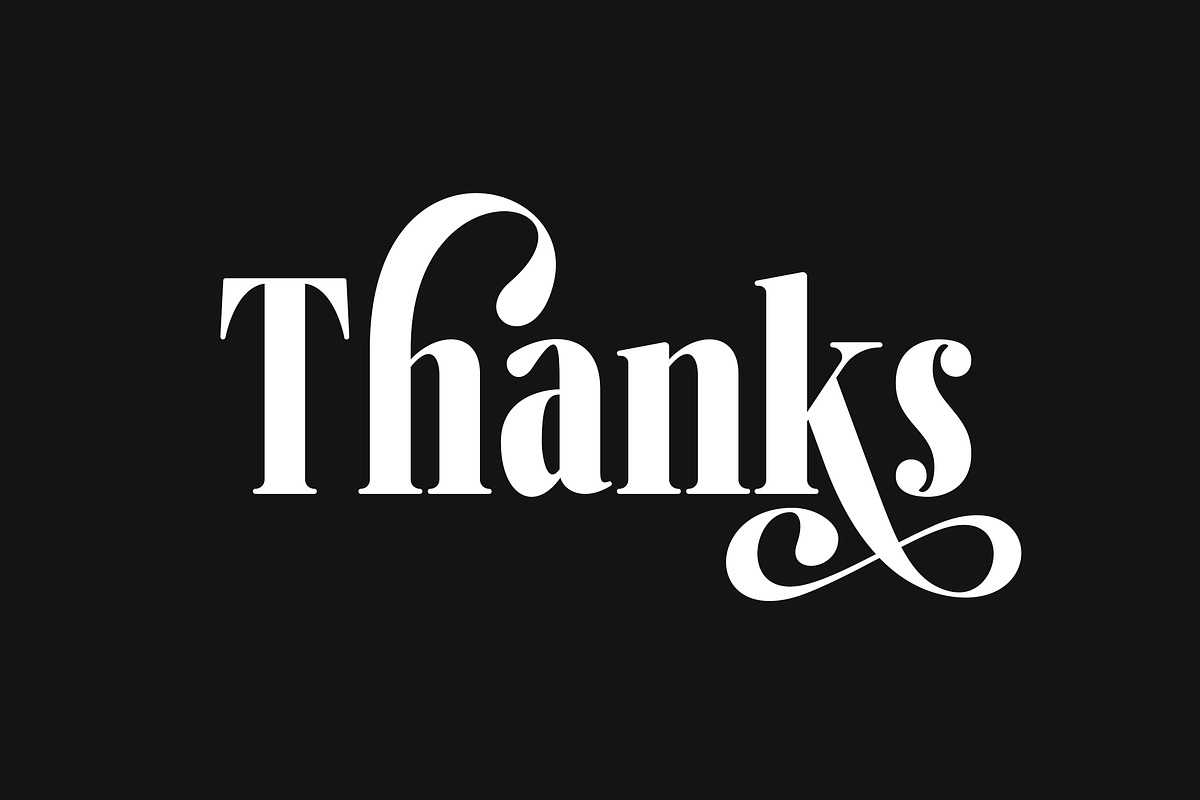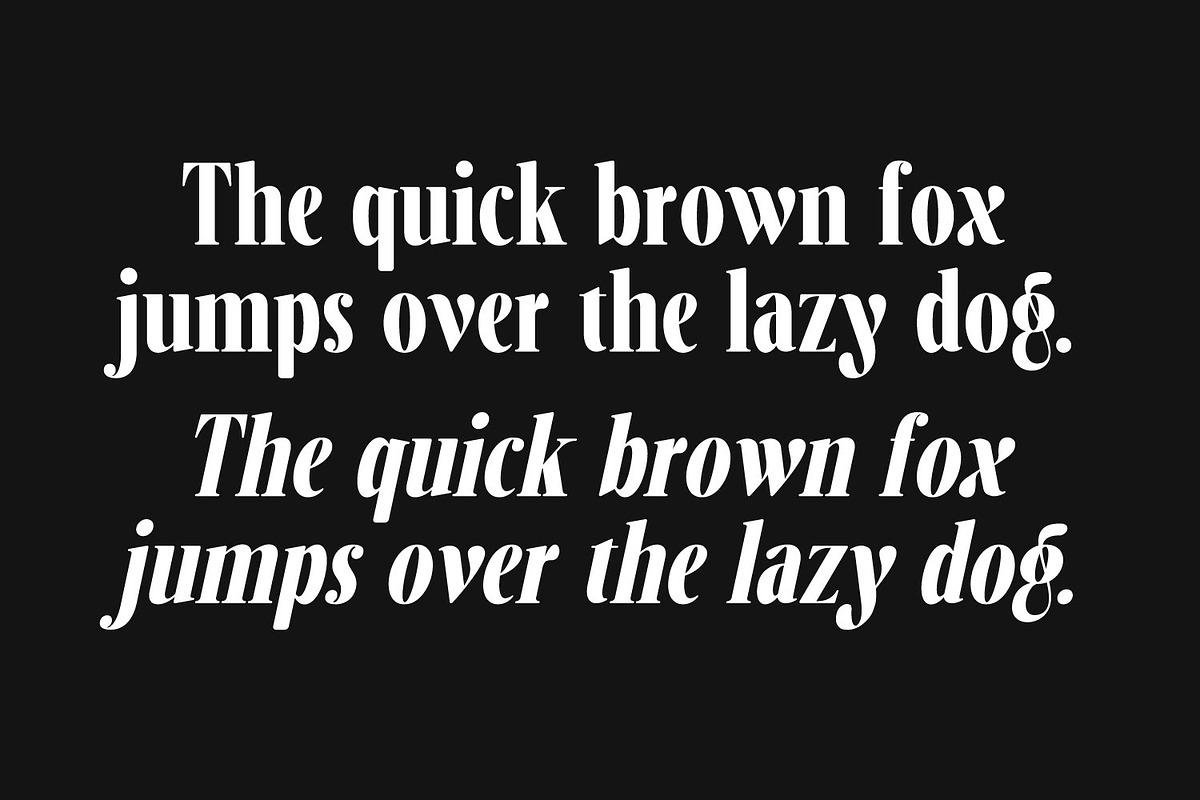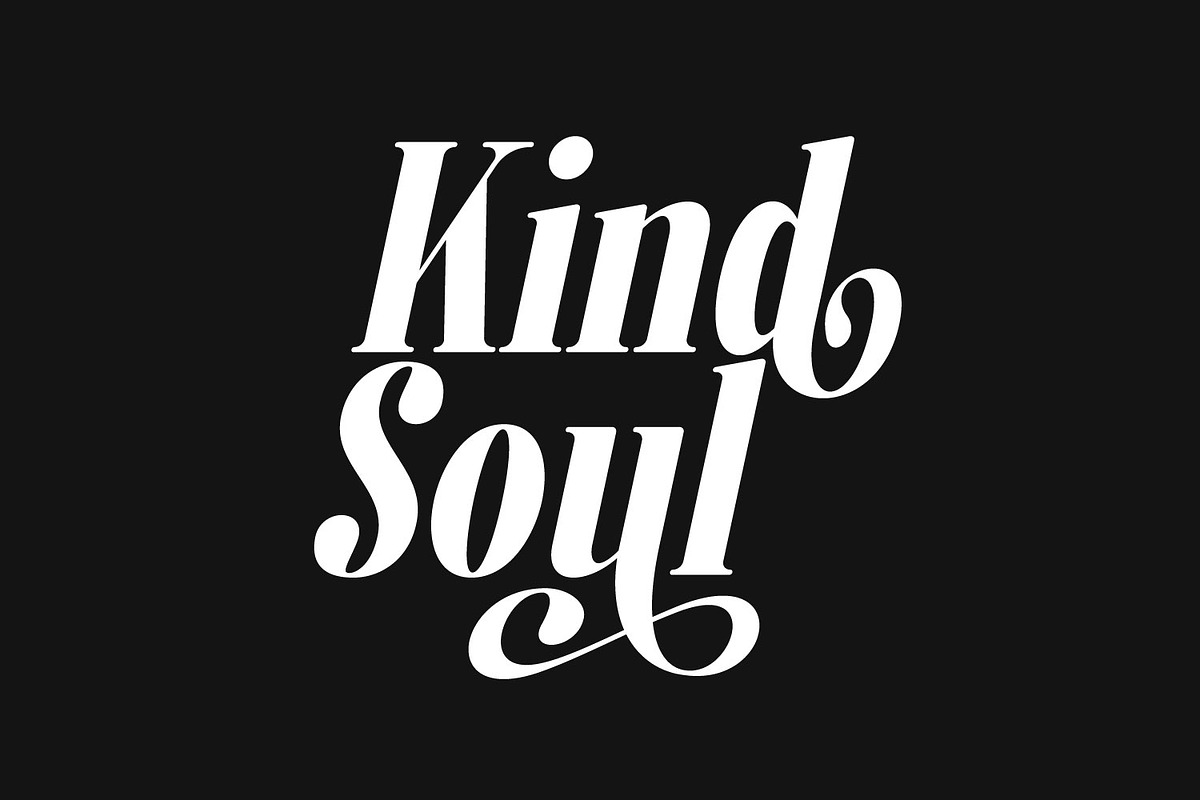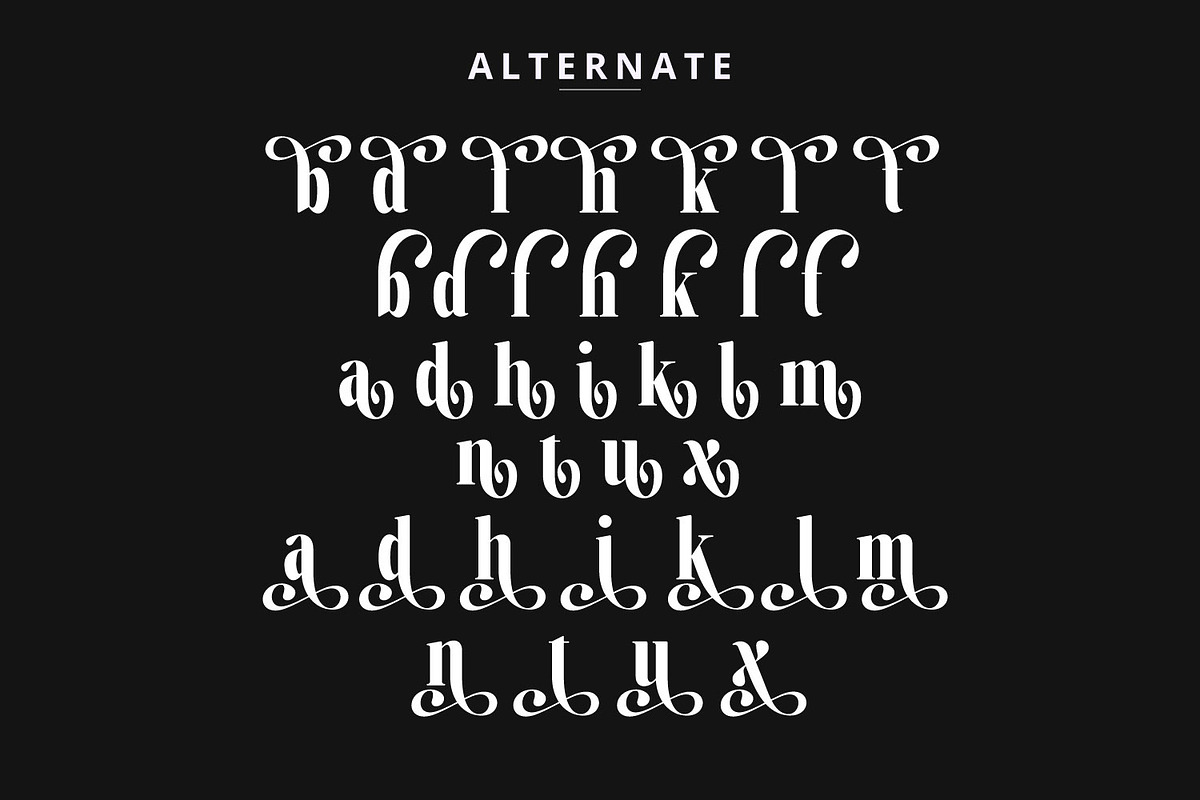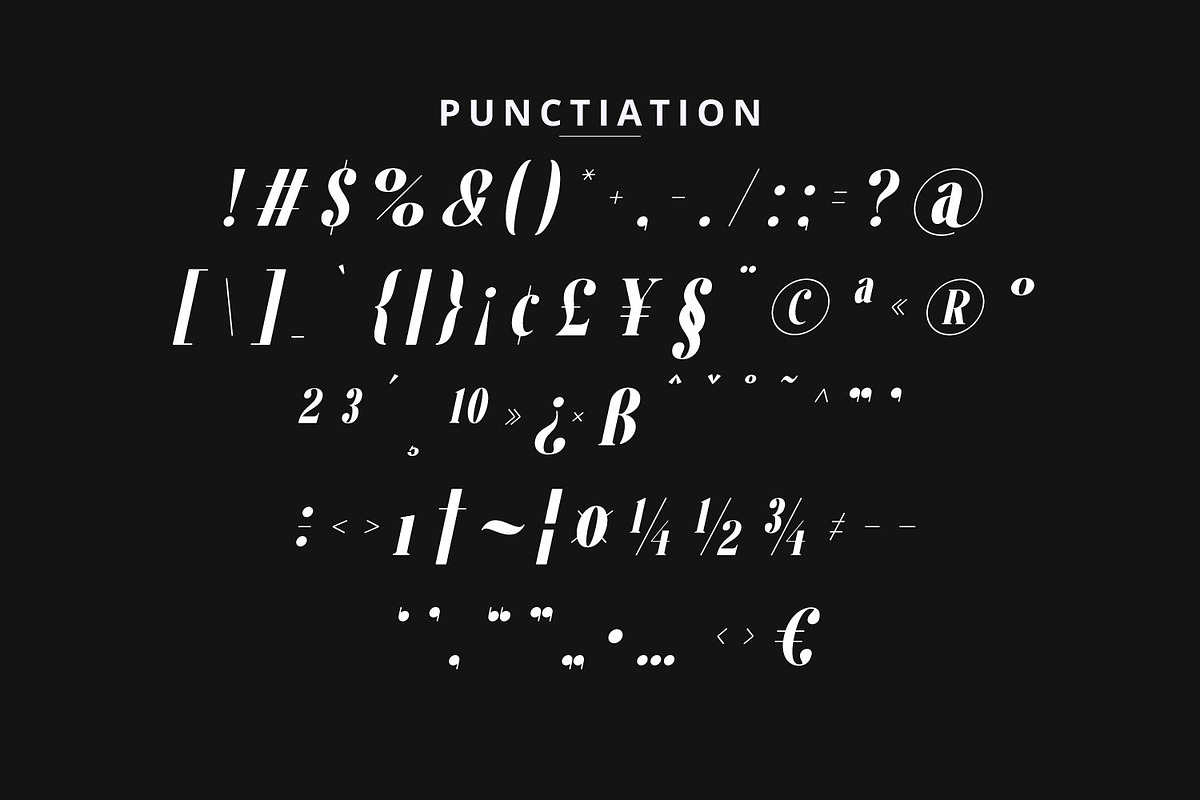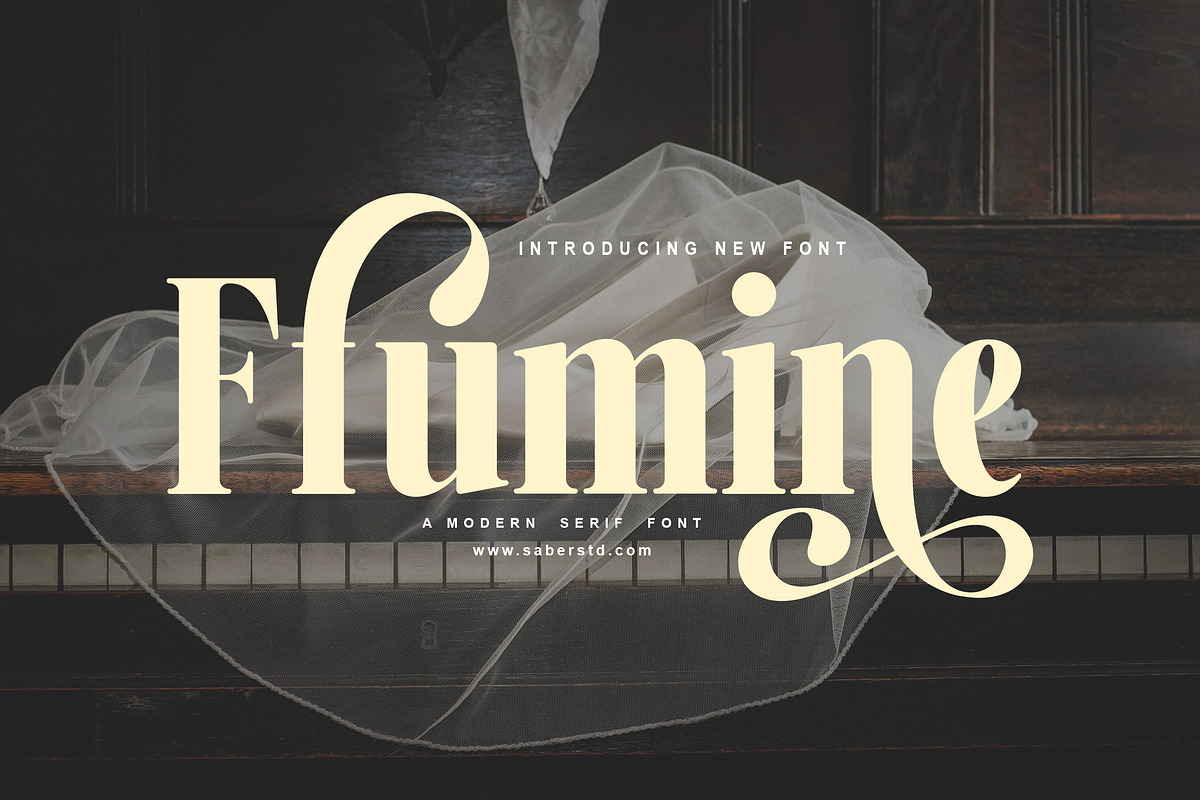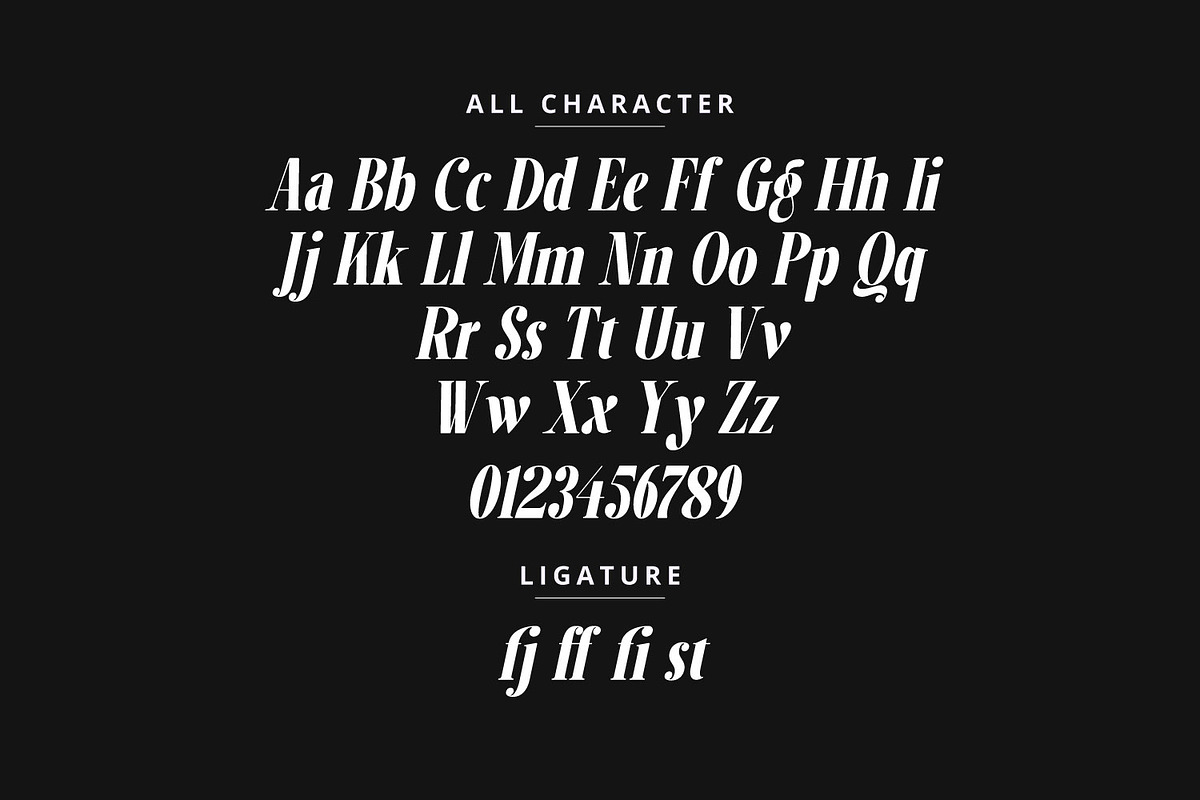
Flumine
Flumine is a modern and awesome handwriting font with a natural style. This font is suitable for your current or classic design: Signature. Logo. Branding. Invitation. Blog Headline and many more.
Lowercase
Numbers and Punctuation